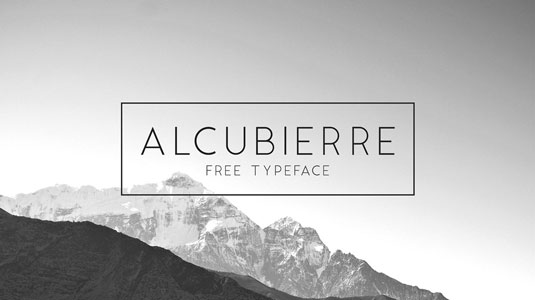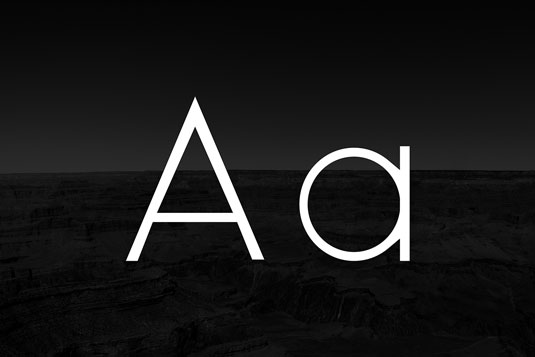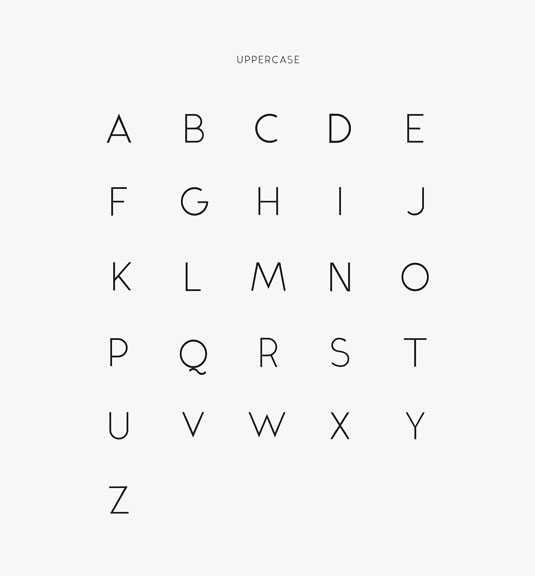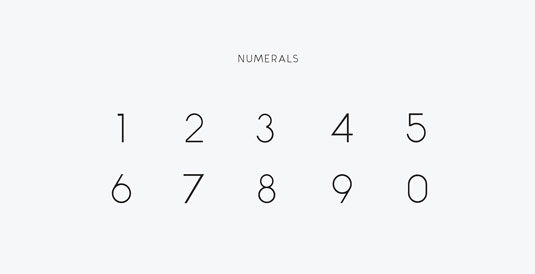
Font of the day: Alcubierre
Alcubierre by Matt Ellis
Wash away those Monday blues with this cool free font. Today's offering is Alcubierre, a geometric sans serif typeface created by designer Matt Ellis. A clean, minimal font, Alcubierre works for a variety of uses, including stationery, logos and posters.